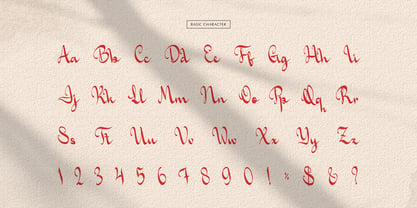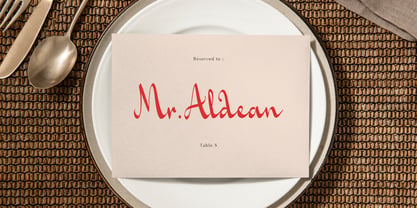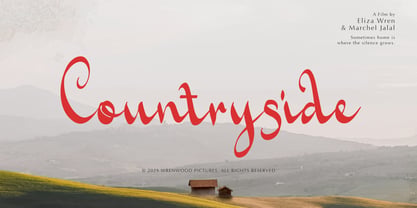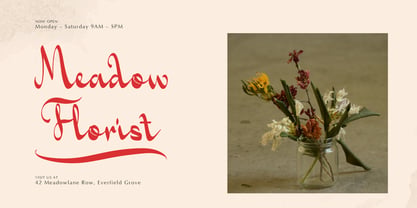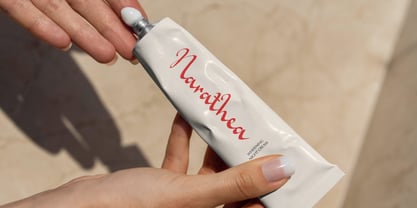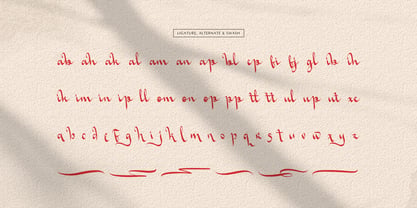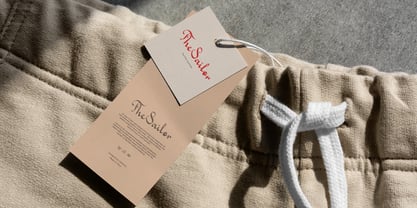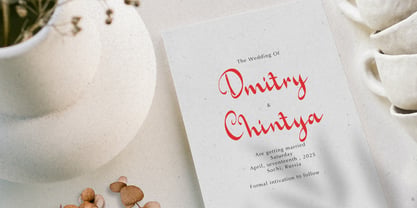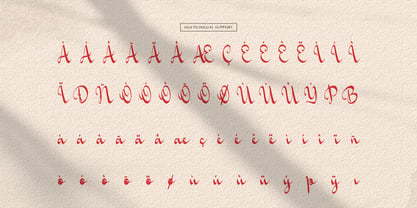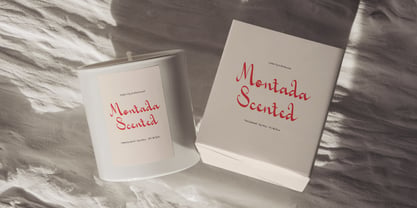
Le Undines
by Tini Fitriani
The Le Undines Font Family was designed by and published by Tini Fitriani. Le Undines contains 2 styles and family package options. More about this family
Le Undines | Signature Font, from Gracetypestudio, suitable for any projects such as: logos, branding projects, homeware designs, product packaging, mugs, quotes, posters, shopping bags, t-shirts, book covers, name card, invitation cards, greeting cards, label, photography, watermark, special events, and all your other lovely projects that need a Signature Font taste.
• Alternate and Ligature